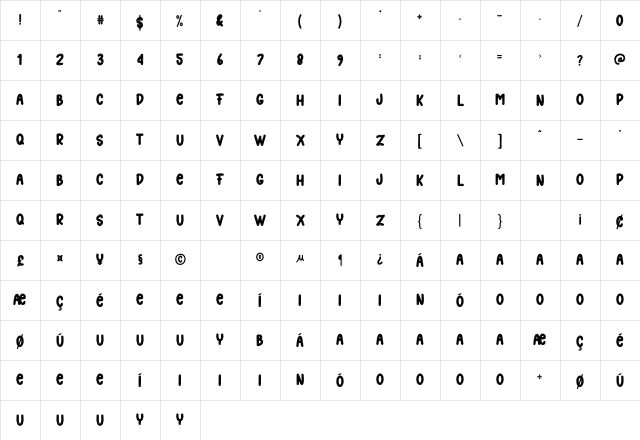
Beach Light Regular Free Font
Beach Light Regular
Design Context for Beach Light
Beach Light is a composed and adaptable typeface that performs quietly and consistently across a wide range of design contexts. Its slender proportions lend an understated elegance to any composition.
Pro Tip: Use Beach Light in both headline and body roles to test its range before committing to a single application.